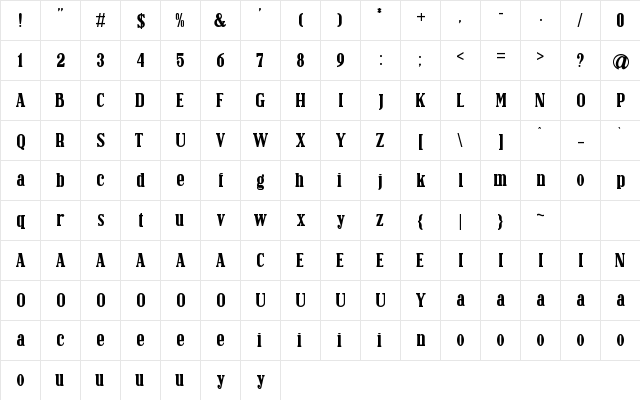
Ekim Mezunu Regular
| Designer | AmruID |
Design Context for Ekim Mezunu Typeface
Ekim Mezunu takes a measured approach to typography — its balanced proportions and neutral character make it a reliable workhorse for both digital and print work.